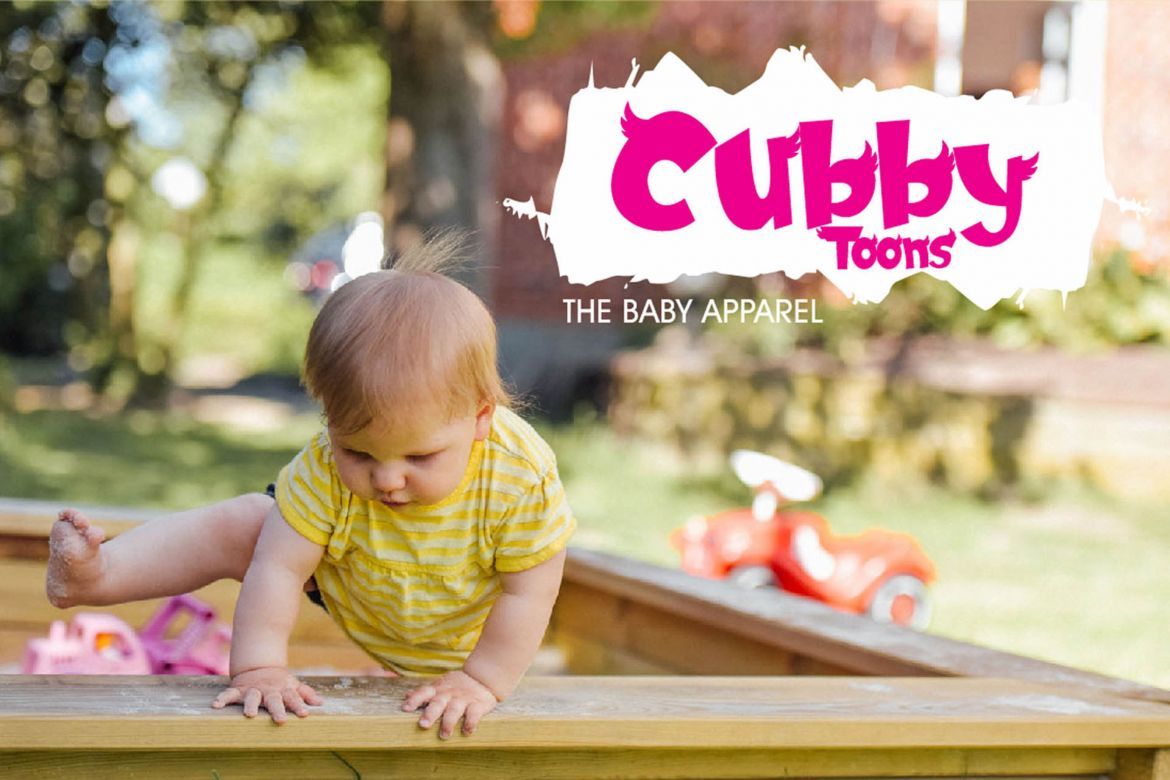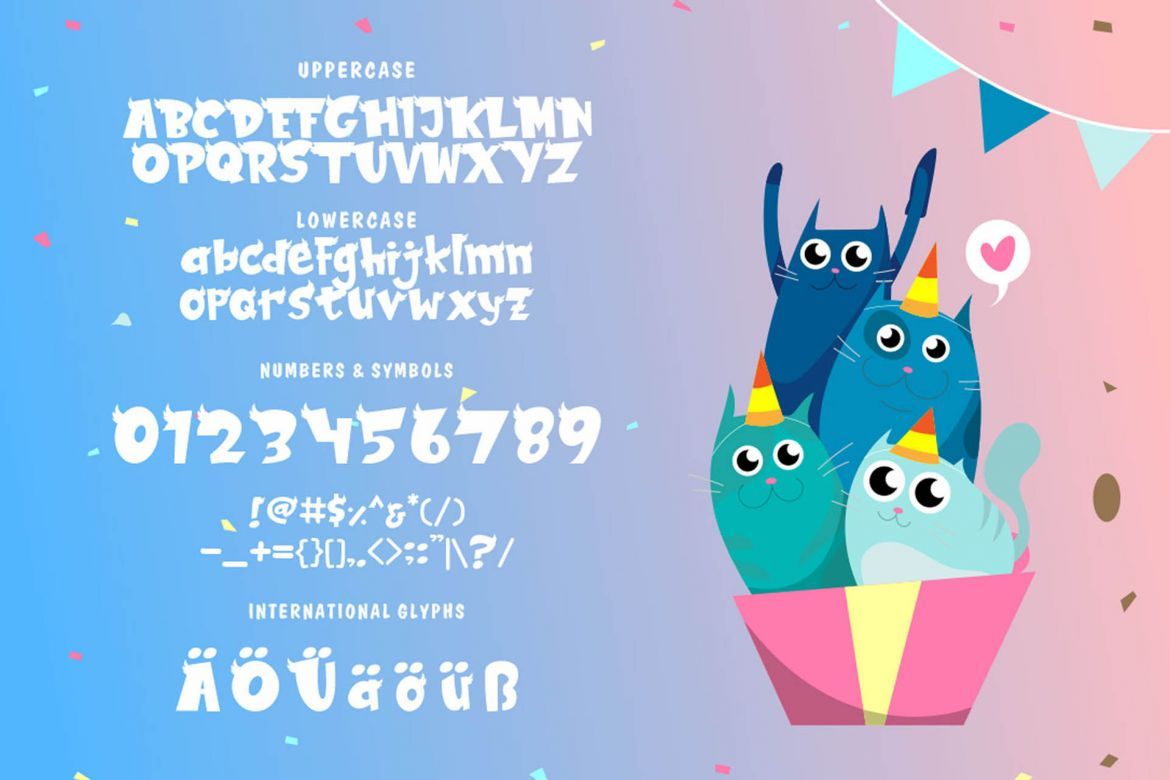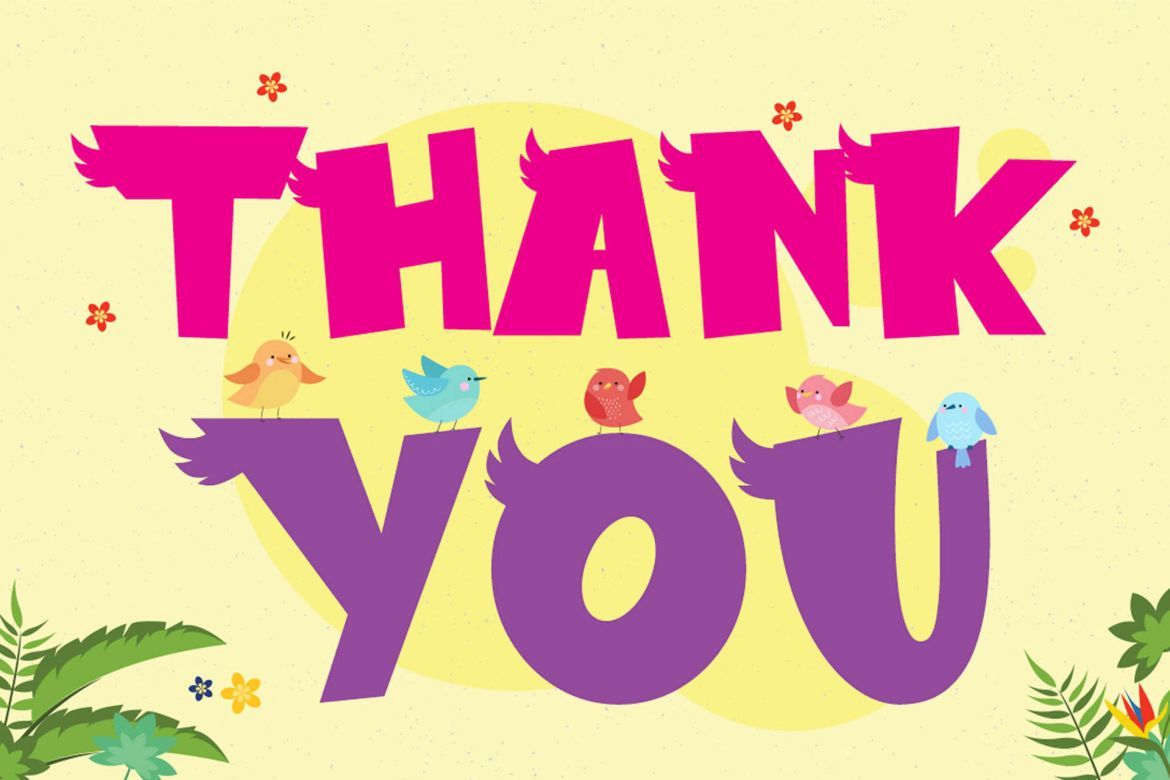
BIRDTHOPIA Display Font
The Birdthopia is an unique display font, It’s perfect for adding a cute and playful touch to your designs.
It can be used for t-shirts, quotes, posters, logos, magazines covers, and even large-scale artwork.